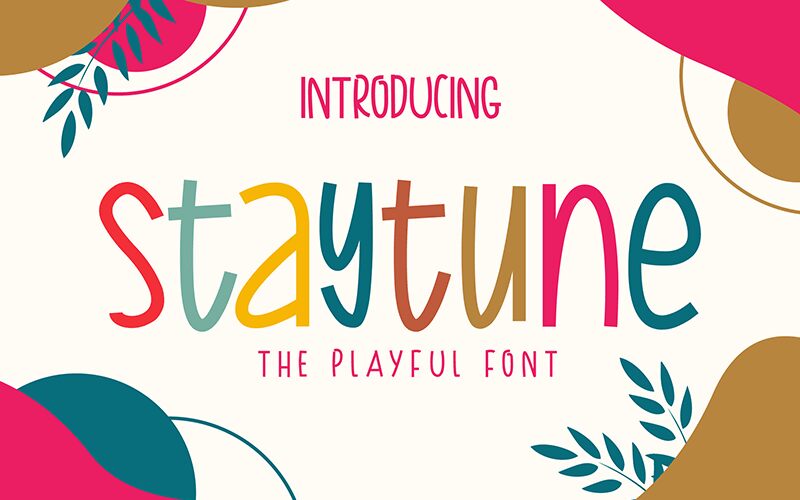
Staytune
Introducing Staytune, the playful and quirky display font designed by Letterday Studio. This light and condensed typeface packs a punch with its comic style, perfect for adding a fun element to any design project. Whether you're creating eye-catching posters or designing colorful logos, Staytune is sure to make your message stand out. Its condensed style also makes it ideal for projects with limited space, such as packaging or social media graphics. So why wait? Tune into Staytune and let your creativity run wild!